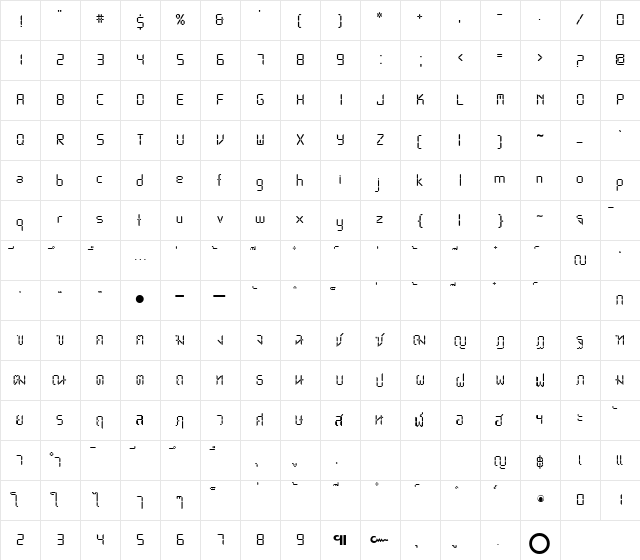
SP Digit Regular
Design Context for SP Digit Typeface
SP Digit has a distinctly futuristic character, with geometric precision and clean angles that feel at home in technology, gaming, and sci-fi contexts.
Pro Tip: Try SP Digit with generous letter-spacing in UI labels and navigation — the geometric forms benefit from room to breathe.